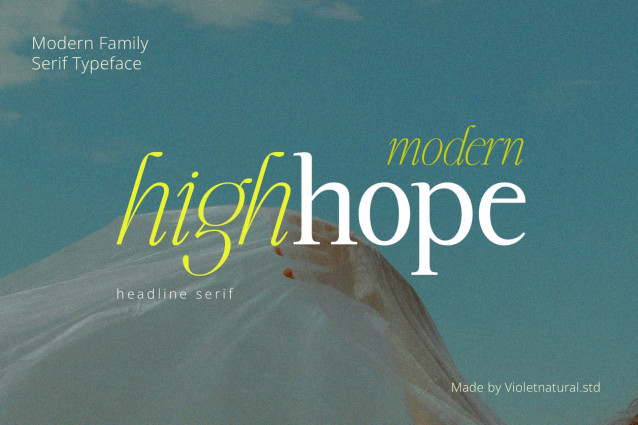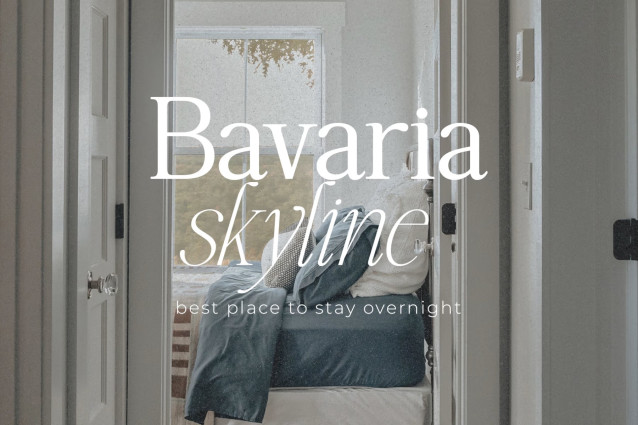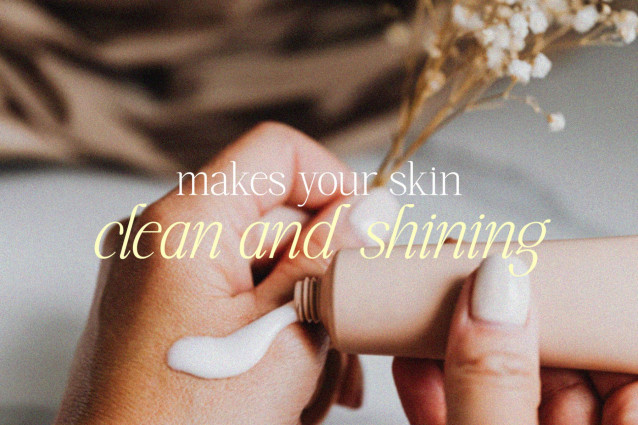
Hello, this is my newest font called Highhope Serif Family . This font has a classic retro style but is packaged in a modern way to make your work projects more attractive and aesthetic
Highhope Font
| Classification: | Modern Fonts, Retro / Vintage Fonts, Serif Fonts, Style / Aesthetic Fonts |